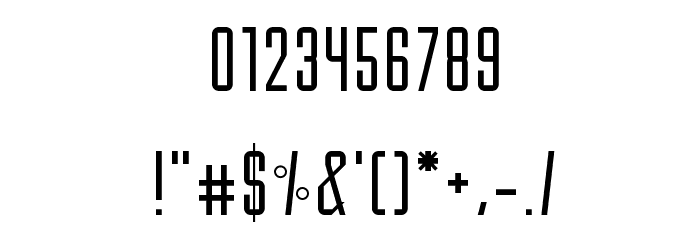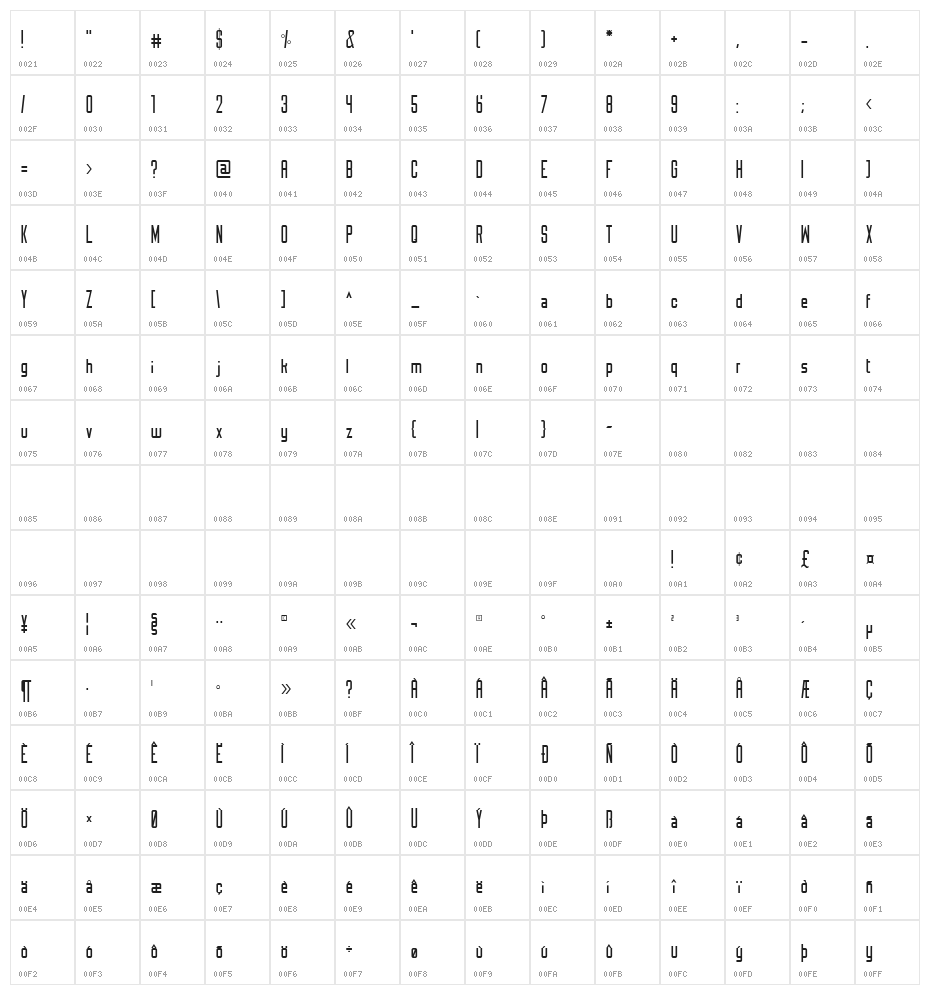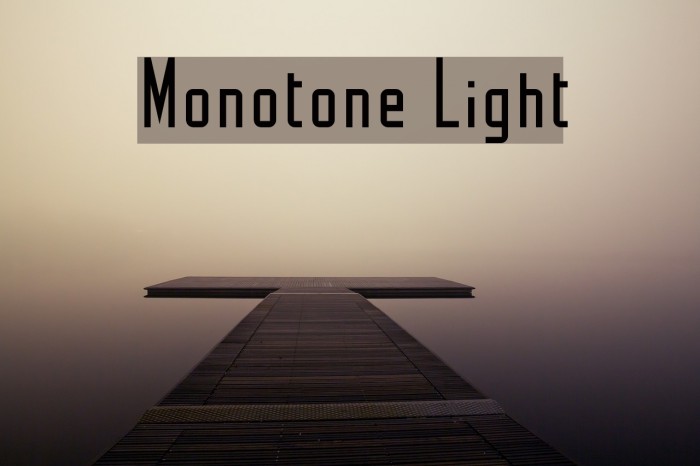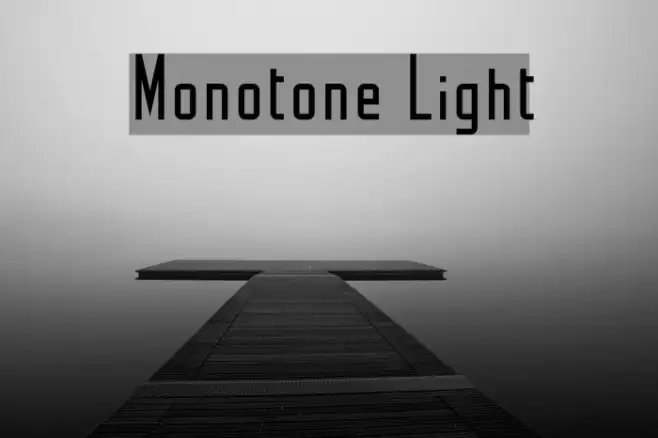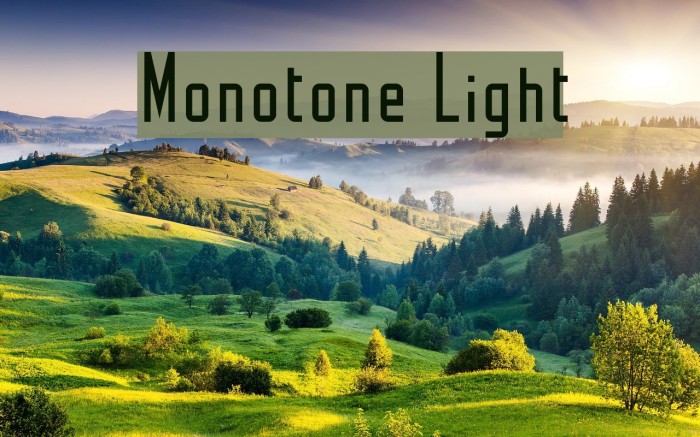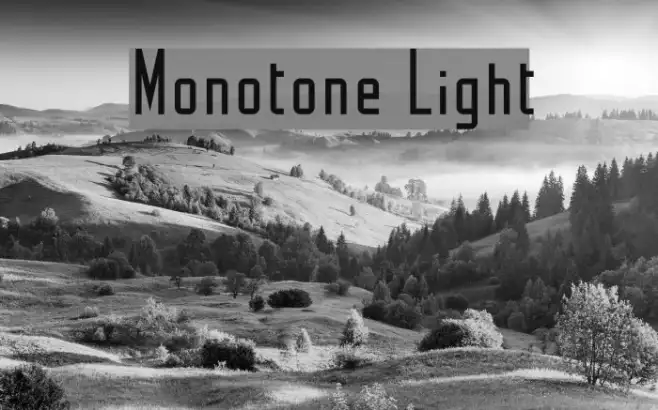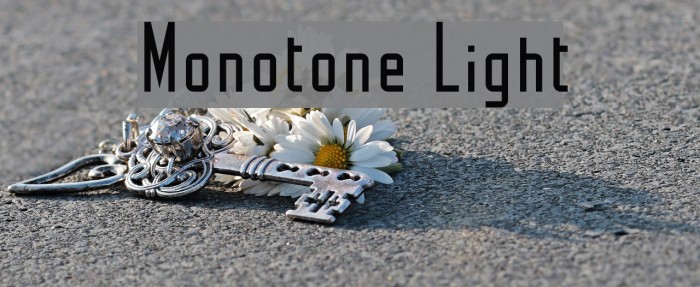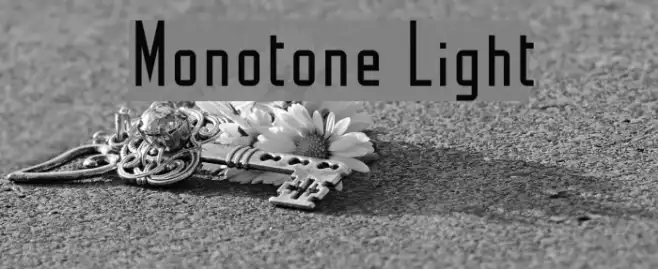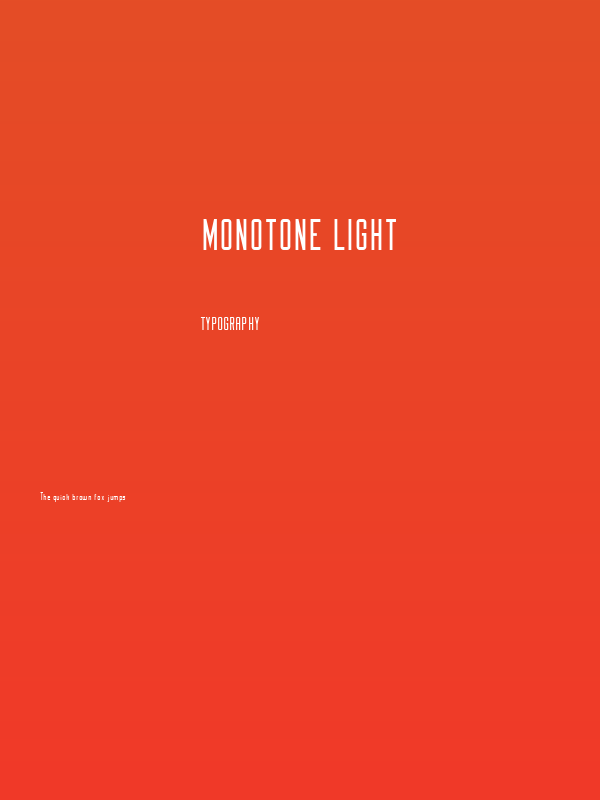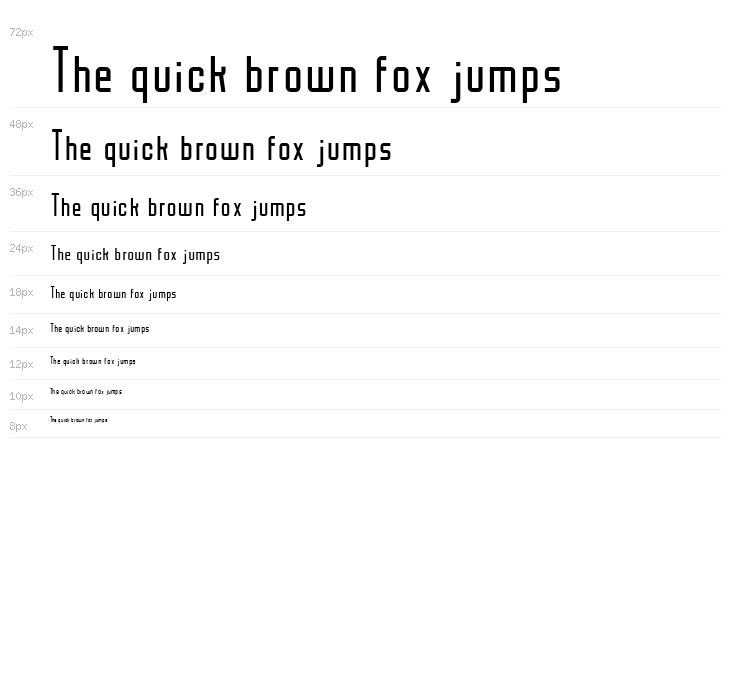
Monotone Light Font
Monotone Light Description
This font features a clean, geometric design with a modern aesthetic. The characters are uniformly structured, providing a sense of balance and clarity. The uppercase and lowercase letters maintain a consistent height, contributing to its streamlined appearance. The numerals and special characters are designed to complement the letterforms, ensuring readability and coherence. This font's simplicity and precision make it suitable for a wide range of applications.
| Proposed Projects | Ideal for branding, editorial design, web design, and signage due to its clarity and modern appeal. |